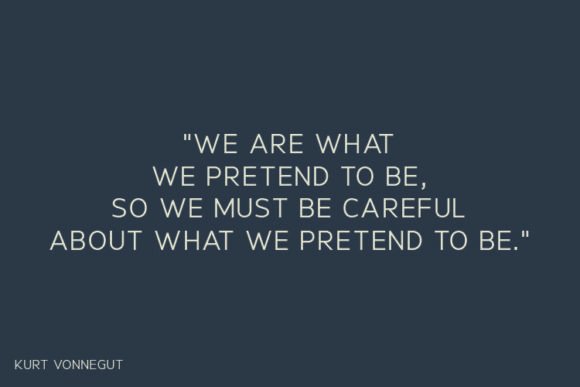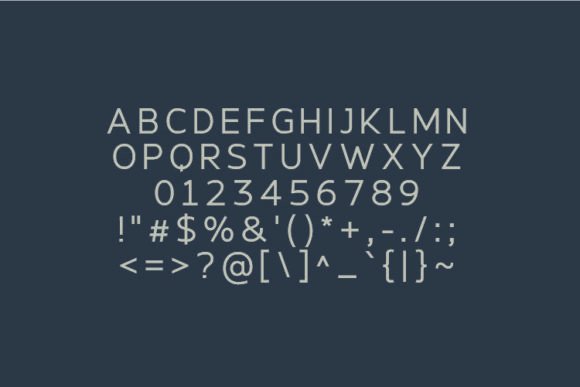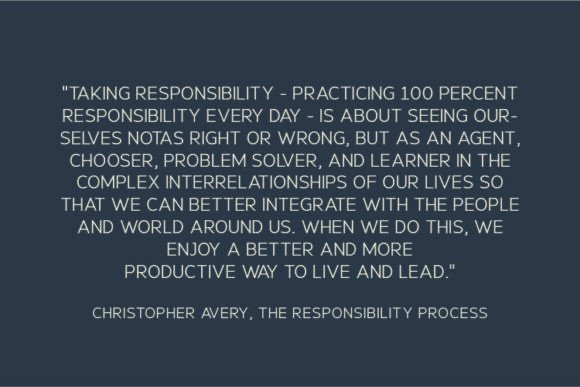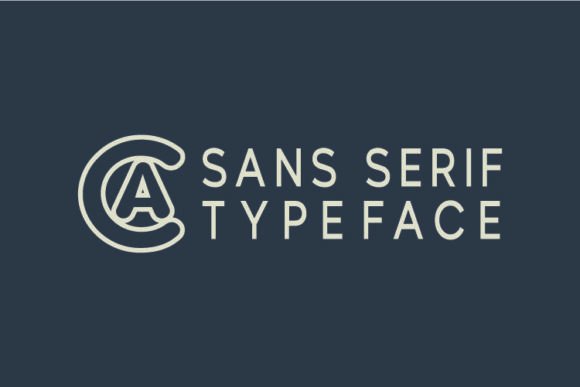
Introduction to Perfectly Font
Have you ever stared at a blank page, surrounded by endless design possibilities, yet unable to find the perfect font to bring your creative vision to life? This is a familiar feeling for many designers, but what if you had access to a high-quality, versatile typeface that could elevate any project? Look no further than the Perfectly Font, a modern, classy sans serif design resource that’s perfect for logos, weddings, invitations, and more.
Whether you’re working on a free download for a client or a creative project from scratch, the Perfectly Font offers a range of benefits that make it an invaluable addition to any design arsenal. Its transparent background and sophisticated design make it easy to integrate into any visual identity, while its wide range of characters, numbers, and punctuation ensures that you have everything you need to bring your ideas to life.
Key Features of Perfectly Font
- High-quality design resource with a transparent background, ideal for creative projects
- Includes a wide range of characters, including Latin, Cyrillic, and Greek alphabets, with over 500 glyphs
- Unique characteristic: Perfectly Font features a modern, sans-serif design with clean lines and a minimalist aesthetic
- Perfectly Font is fully scalable, making it suitable for use in various creative projects, from small text to large headings
Honest Review: Perfectly Font
As a designer, I’m always on the lookout for high-quality design resources to elevate my creative projects. Recently, I stumbled upon Perfectly Font, and I’m excited to share my honest review.
What works well: ✨ I was impressed by the variety of styles and formats available, making it easy to find the perfect font for any project. The transparent background feature is also a game-changer, allowing for seamless integration into designs. The font is crisp and clear, making it perfect for digital use.
How to Use Perfectly Font
Tips for Getting the Most Out of Perfectly Font
To get the most out of Perfectly Font, use it with a transparent background to create a seamless design. You can also experiment with different font sizes, colors, and combinations to create a unique look.
Perfectly Font is perfect for creating logos, branding materials, and marketing materials. Its high-quality design makes it ideal for any creative project that requires a professional look.